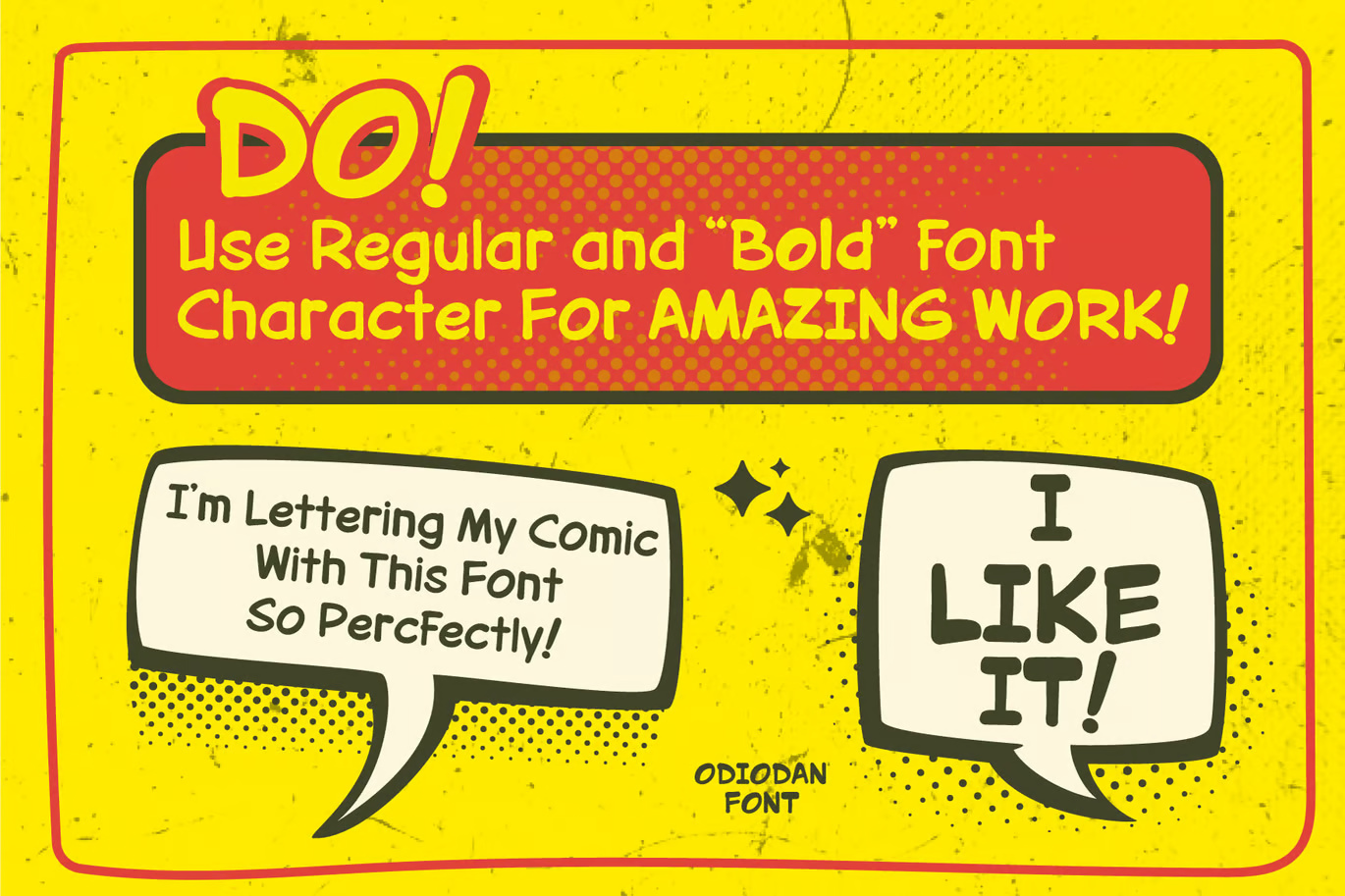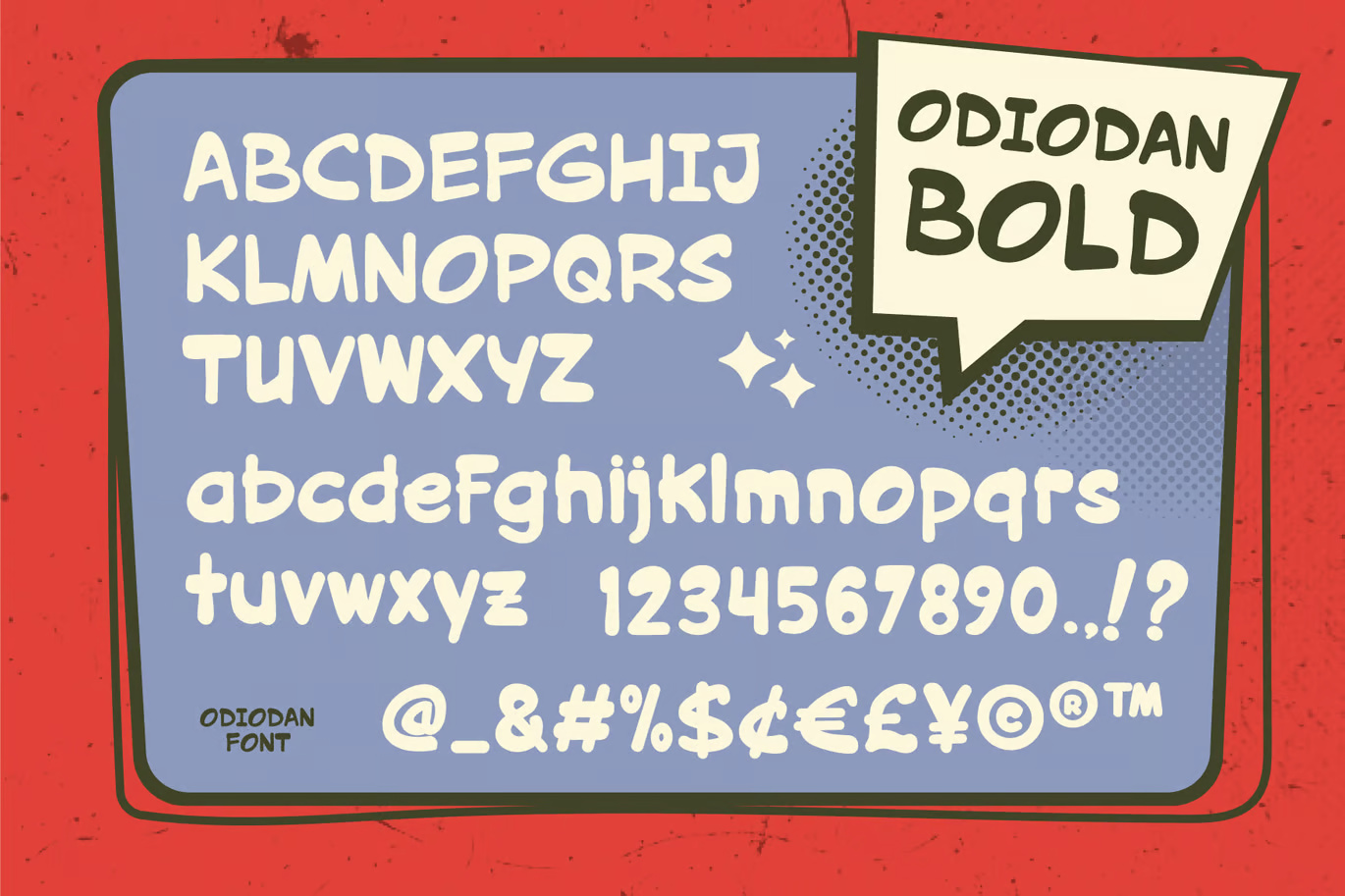
Odiodan – Comic Strip Font
Odiodan has been released for those looking for a comic strip font perfect for dialogue text. This classic handwritten font blends a bold, freestyle comic style with a slightly extended design inspired by traditional comic book lettering.
With its easy-to-read characters, Odiodan is ideal for various creative projects. Whether you’re designing typography for headlines, pricing details, or eye-catching text, this font ensures a dynamic and standout appearance.